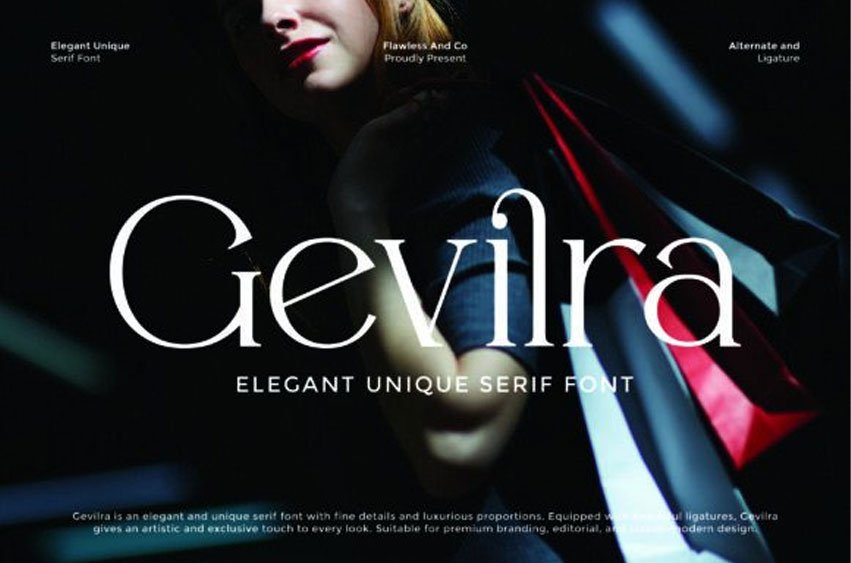
Gevilra Font
Gevilra Font is a refined modern serif font that blends classic elegance with a distinctly contemporary edge. Characterized by its delicate curves, high-contrast strokes, and graceful ligatures, it exudes a sense of sophistication and luxury. Subtle yet expressive, Gevilra’s thoughtfully designed alternates and stylistic details elevate visual storytelling—making every composition feel curated and intentional.
Whether used in high-end branding, fashion editorials, luxury packaging, or artful typographic layouts, Gevilra delivers a polished voice that is both timeless and trend-conscious. It thrives in spacious layouts where its finesse and visual rhythm can shine, adding depth, confidence, and elegance to every project.